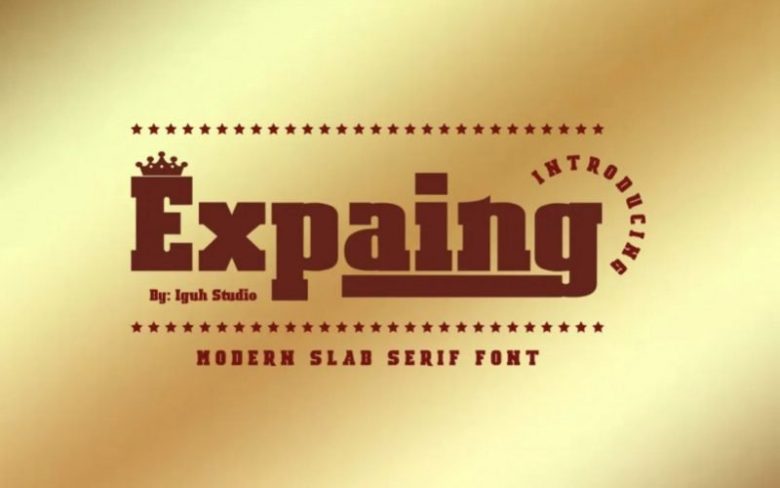
Expaing Font
Expaing Modern Slab Serif Font is a bold, yet sophisticated font features chunky and extended characters that will look particularly adept when used in logos, branding, fashion magazines, wedding designs, social media posts, advertisements, product packaging, product designs, label, photography, packaging design, and much more. This masterfully designed display font is a true must-have. It contains uppercase, lowercase, numerals, punctuation, symbols and multilingual support.